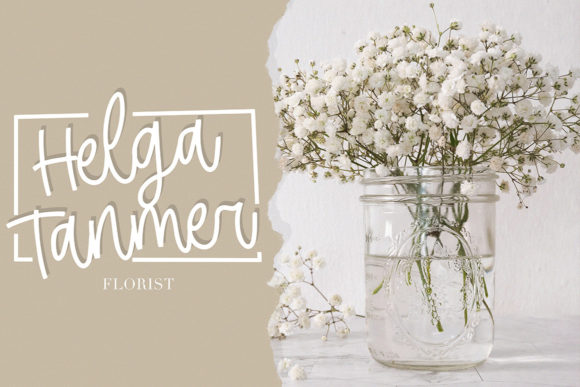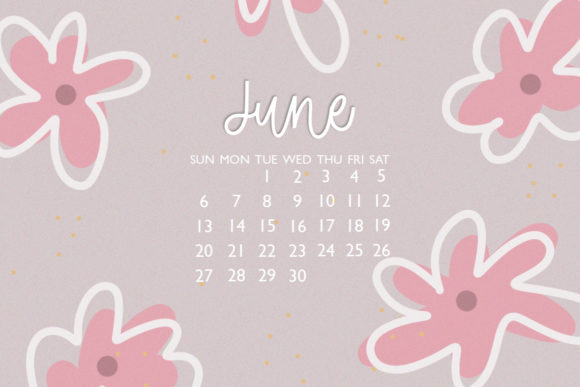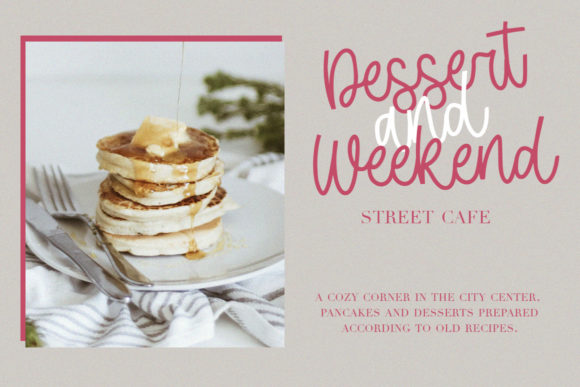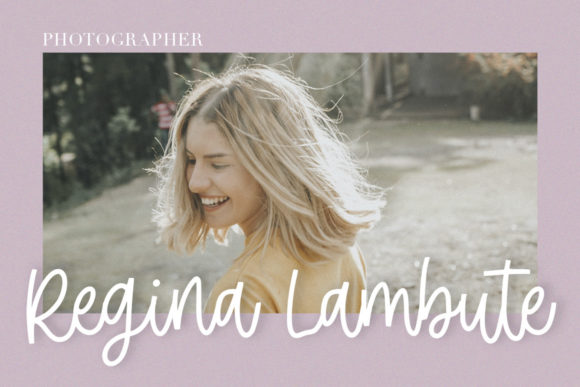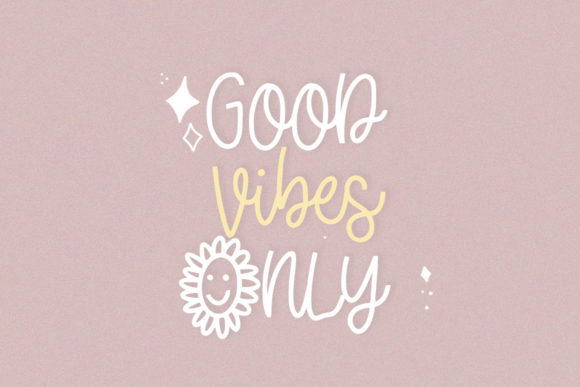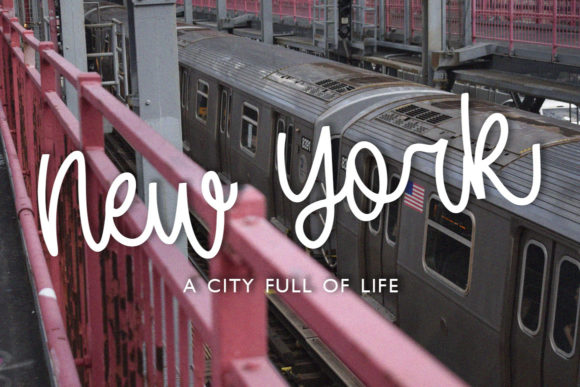
Discover the Joy of Handwritten Charm with Bambino Font
Have you ever sat down with a notebook and pen, letting your creativity flow onto the page as you brainstorm ideas for your next project? For many designers, this is where the magic happens – a moment of pure inspiration that sets the tone for the rest of the design process. And for those who crave that same handwritten charm in their digital designs, we’re excited to introduce you to the Bambino Font.
This adorable typeface is more than just a pretty face – it’s a versatile tool that can add a personal touch to a wide range of creative projects, from branding and headings to wedding designs and invitations. Whether you’re looking to create a whimsical logo or a playful signature, the Bambino Font is sure to bring a smile to your face and a touch of personality to your work.
Bambino Font Key Features
- Font Family: Bambino
- Character Count: 1200+ glyphs, including Latin, Cyrillic, and Greek alphabets
- Unique Characteristics: Whimsical, cursive script with a playful feel, ideal for children’s books, greeting cards, and other creative projects
Bambino Font Review
Overall, I think the Bambino font is a charming and whimsical addition to any design project. Here are some things that work well:
- ✨ Friendly and approachable feel – The Bambino font is perfect for designs that require a warm and inviting tone.
- ✨ Versatile – The font comes in a range of weights and styles, making it suitable for everything from children’s books to corporate branding.
- ✨ Unique character set – The font’s quirky character set adds a touch of personality to any design.
- ⚠️ Limited language support – The Bambino font may not be suitable for designs that require extensive language support, as it’s primarily designed for Latin-based languages.
- ⚠️ Not ideal for small text – The font’s intricate design can make it difficult to read in small text sizes, so it’s best to use it for headings and titles.
- ⚠️ May not be suitable for formal designs – The Bambino font’s playful feel may not be suitable for formal or professional designs.
Overall, I think the Bambino font is a great choice for designers who want to add a touch of whimsy to their projects. Just be aware of its limitations and use it thoughtfully.
To get the most out of the Bambino font, use it for playful, whimsical designs, such as children’s book illustrations, party invitations, or social media graphics. Avoid using it for formal or professional designs, as it may not convey the desired level of sophistication.
For best results, pair the Bambino font with a clean, modern sans-serif font to create a visually appealing contrast.
What is the recommended font size and line height for using the Bambino Font?
The recommended font size for the Bambino Font is between 10pt and 24pt. For optimal readability, we recommend a line height of 1.2 to 1.5 times the font size. This will ensure the text is clear and easy to read, even at smaller font sizes.